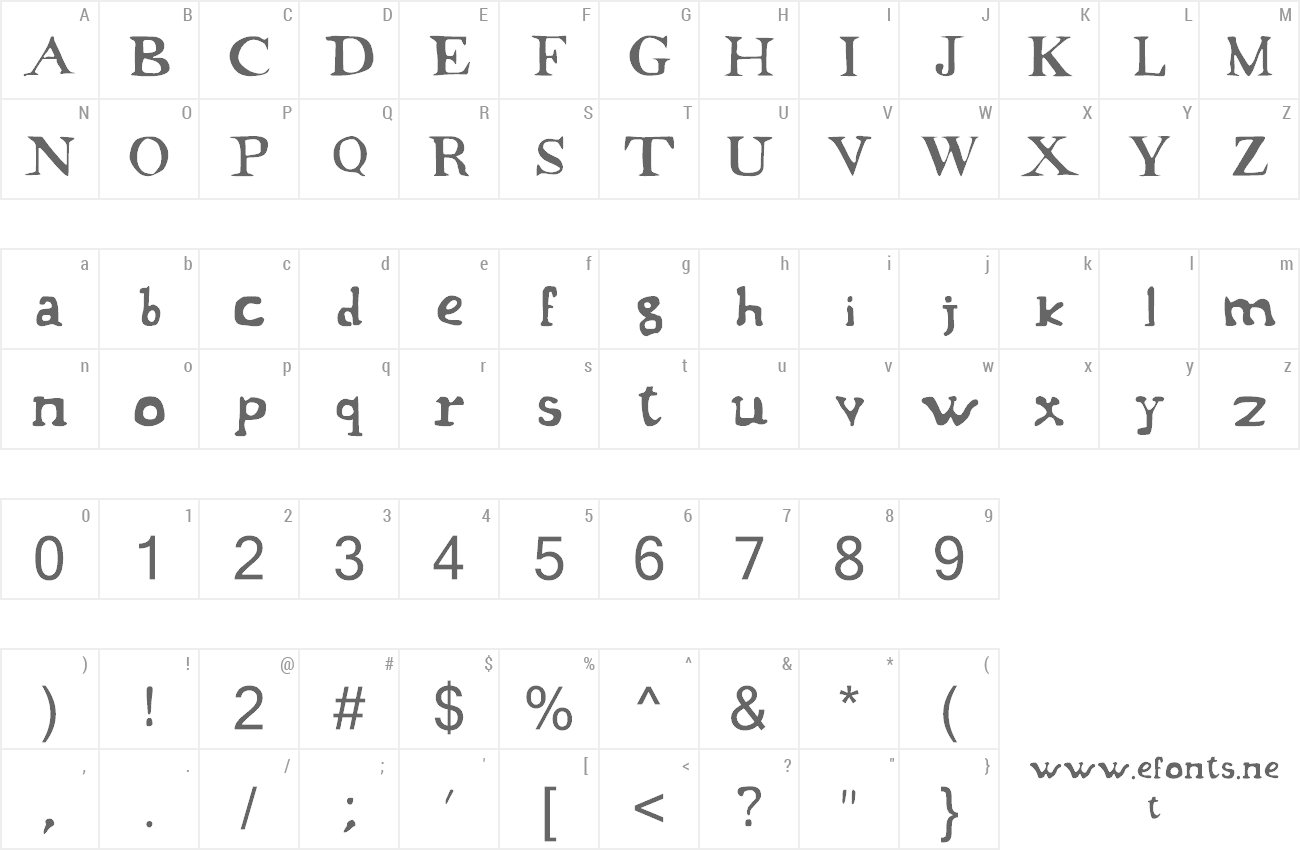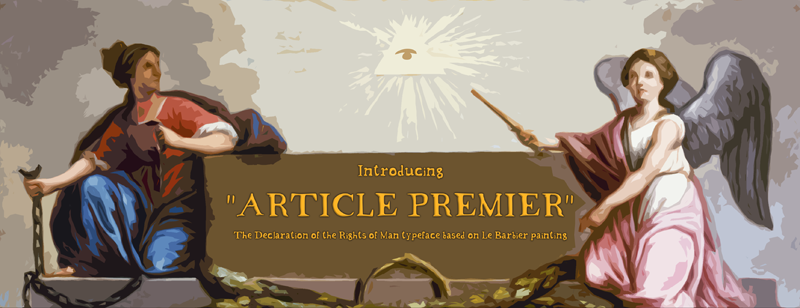
Preview and download Article Premier Font. Created by L�opold Schneider in Fancy Eroded styles with Public domain / GPL / OFL license.
| Note by L�opold Schneider | |
| The Declaration of the Rights of Man typeface based on Le Barbier painting. |